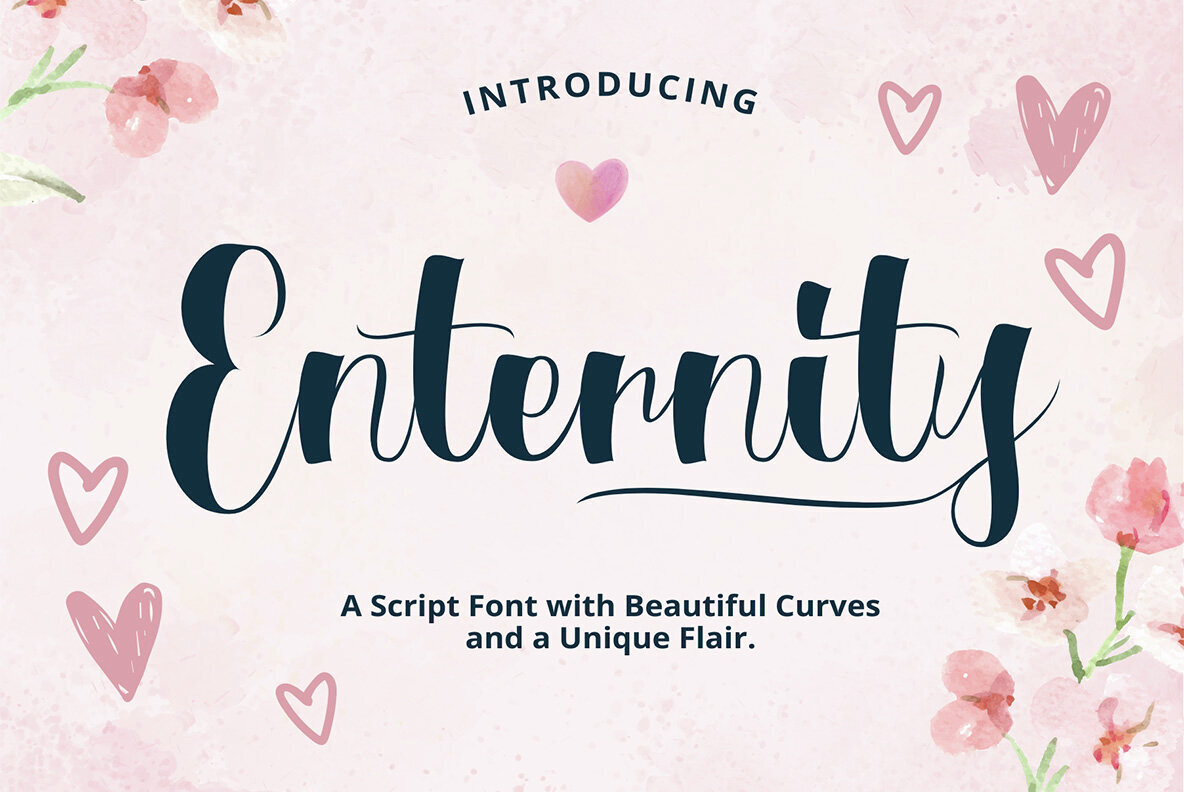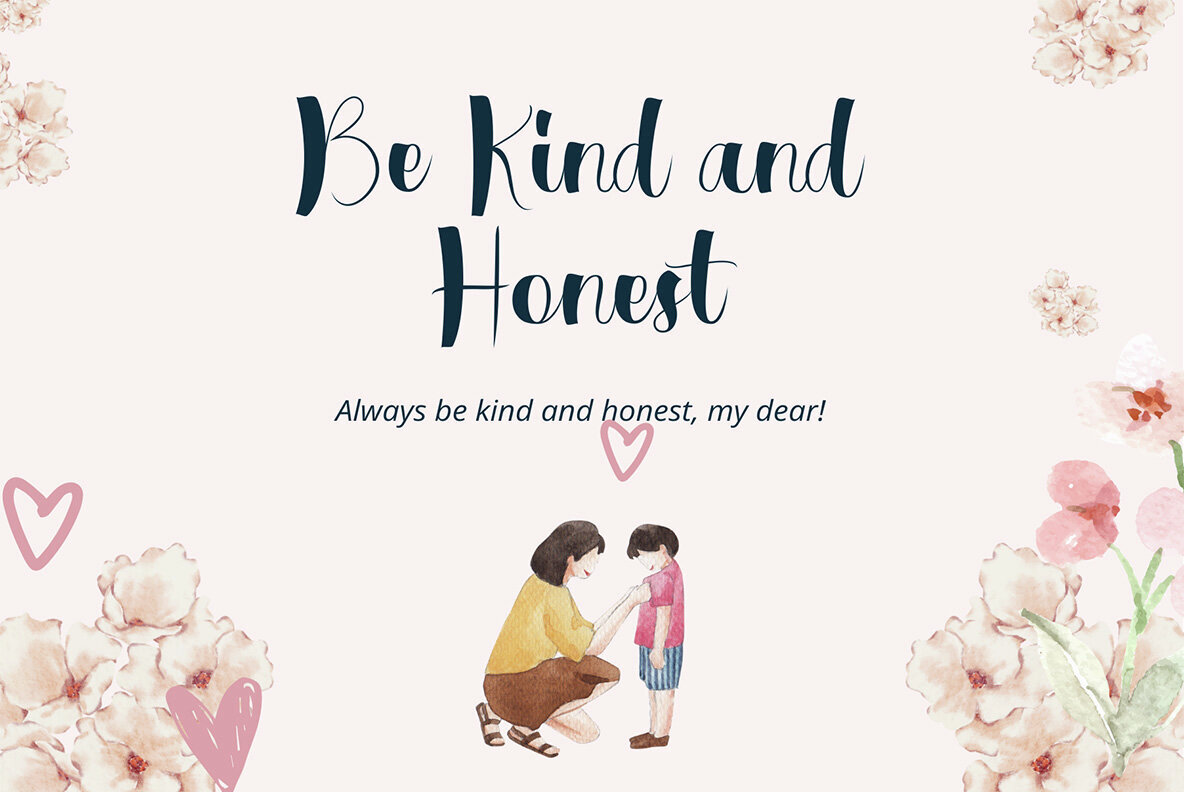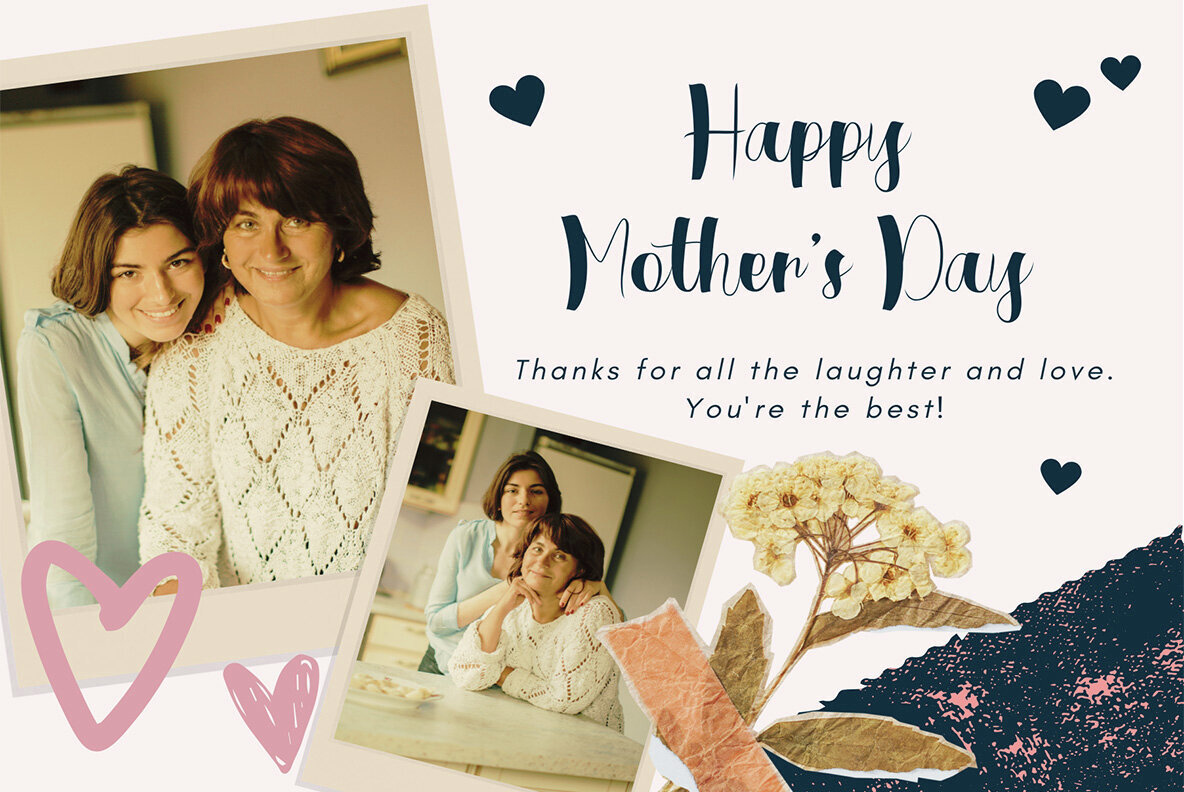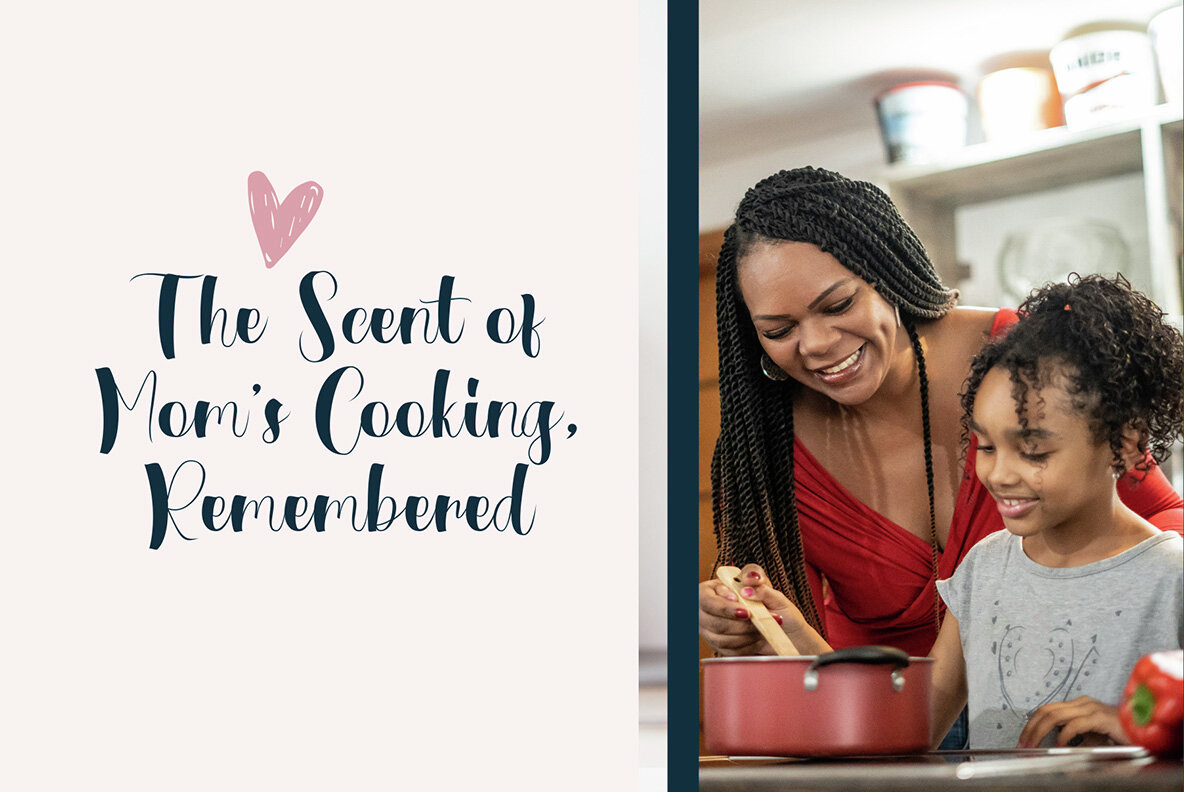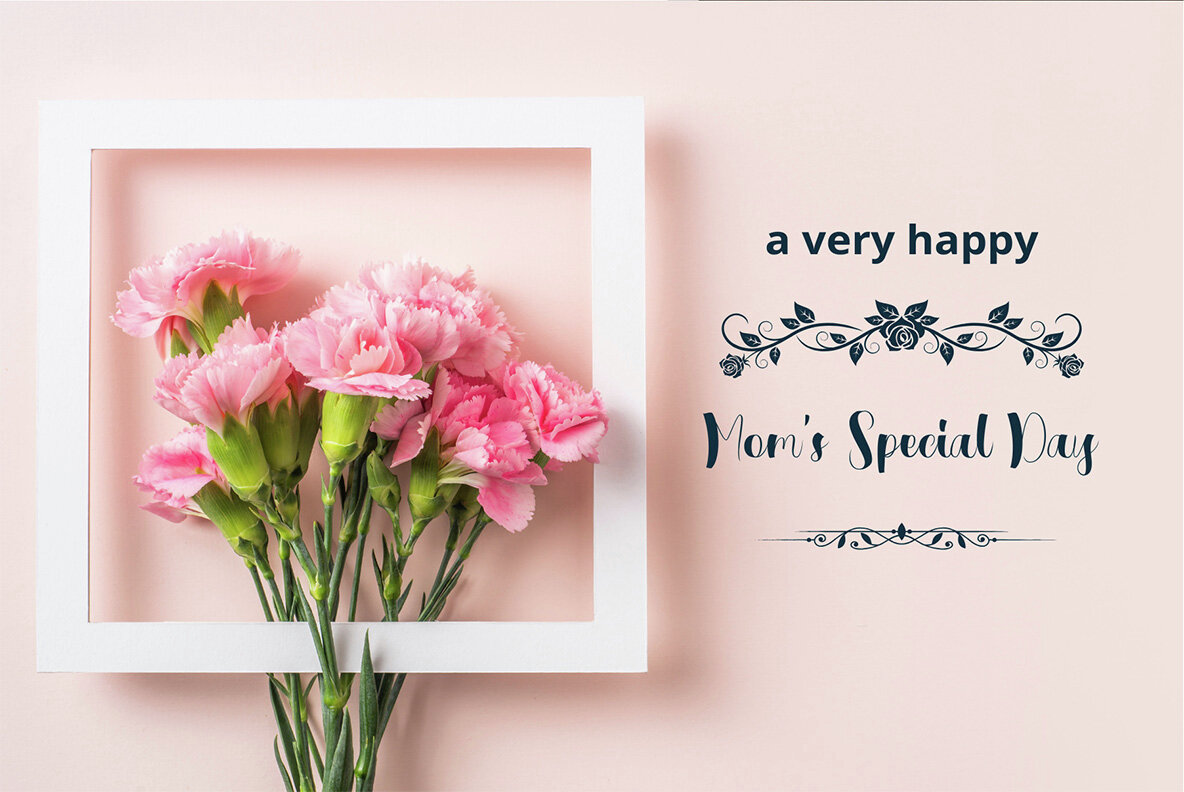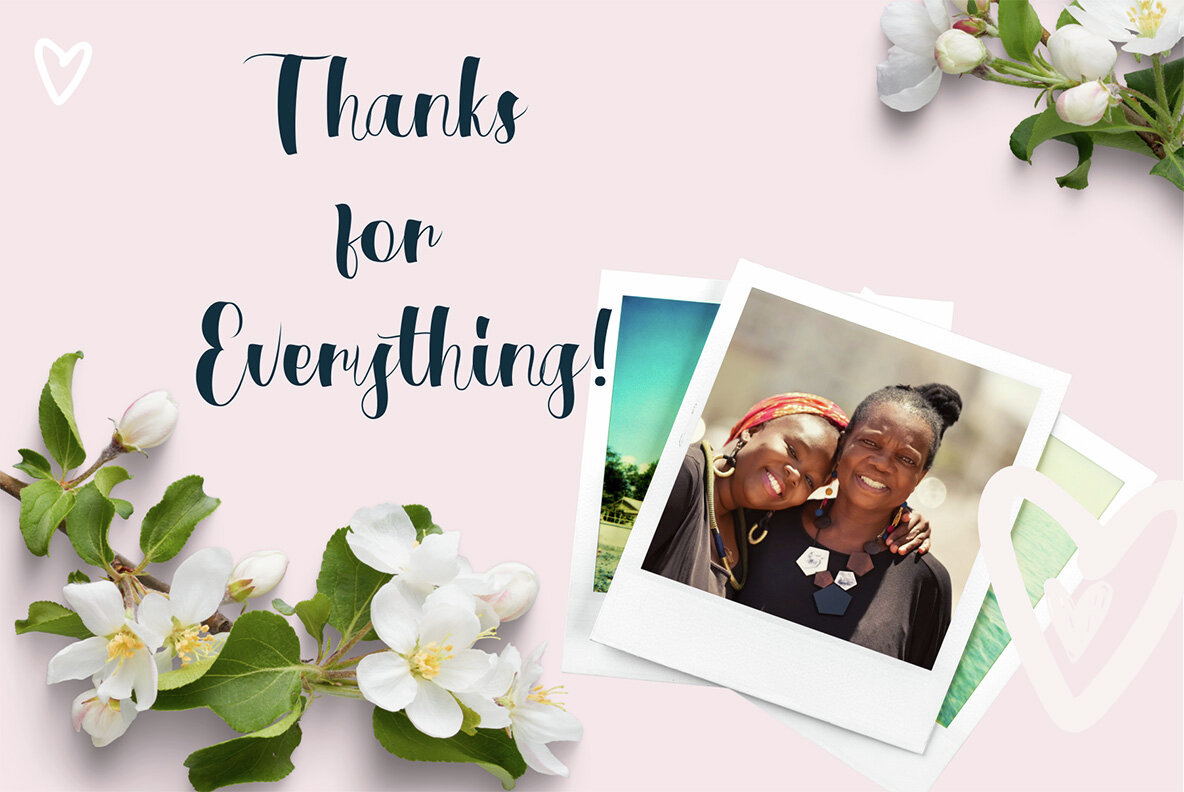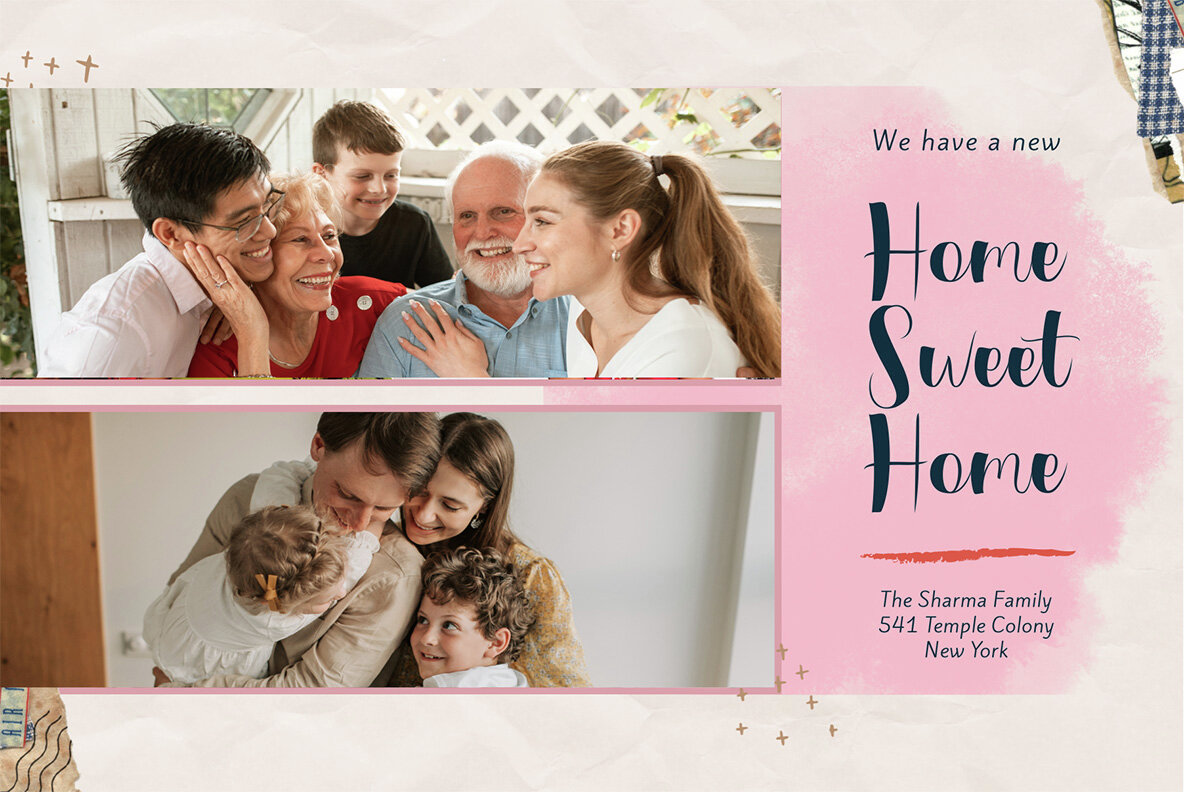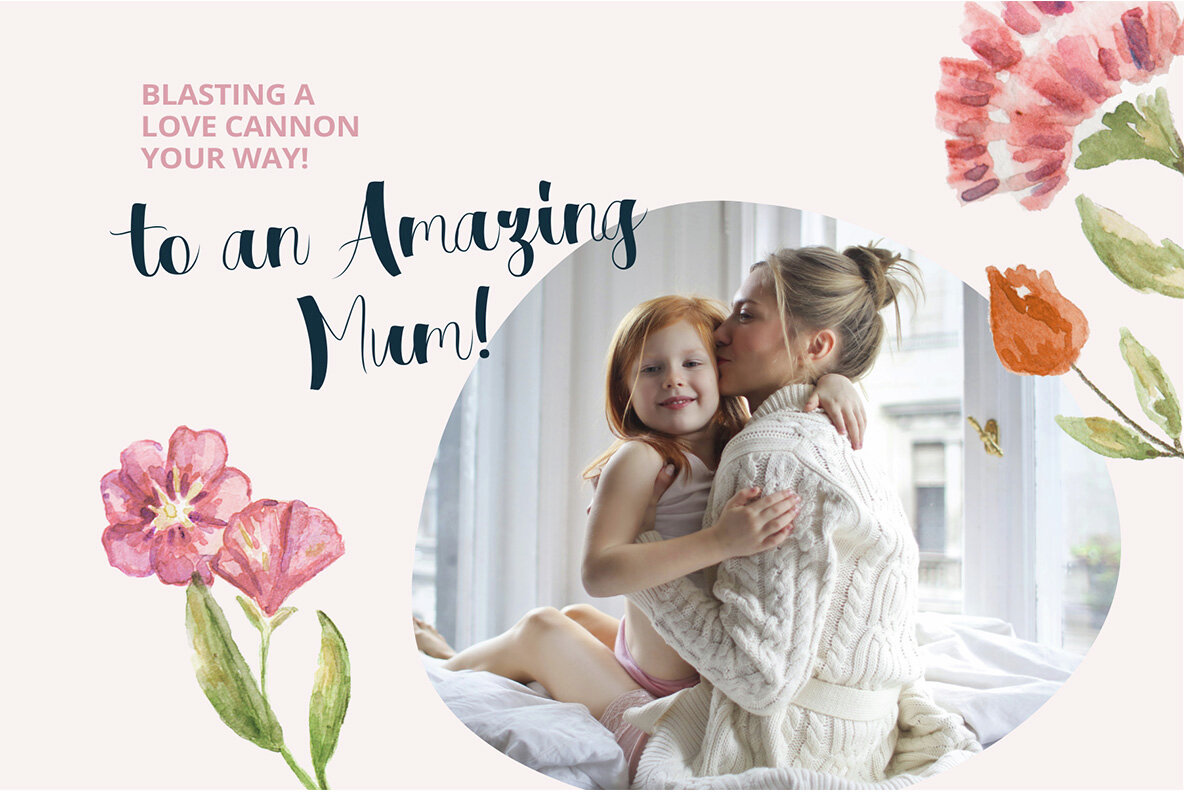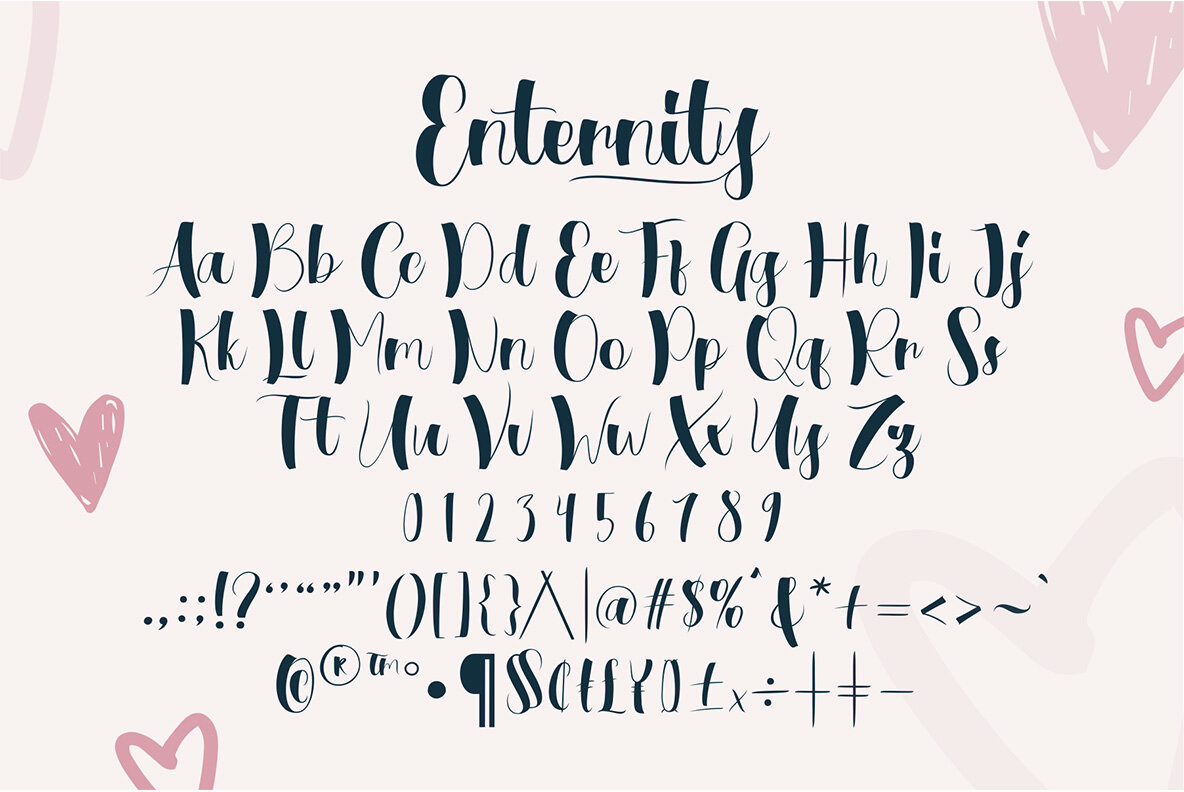
Enternity Font
Enternity
Enternity is a graceful handwritten script font that infuses warmth and a personal touch into any design. With inspiration drawn from natural pen strokes, this font is an excellent choice for wedding invitations, feminine branding, quotes, and product packaging. Let every word come to life with elegance and personality. Choose Enternity to bring beauty to your creative projects, seamlessly blending a classic script style into your storytelling.Enternity: Elegant Handwritten Script